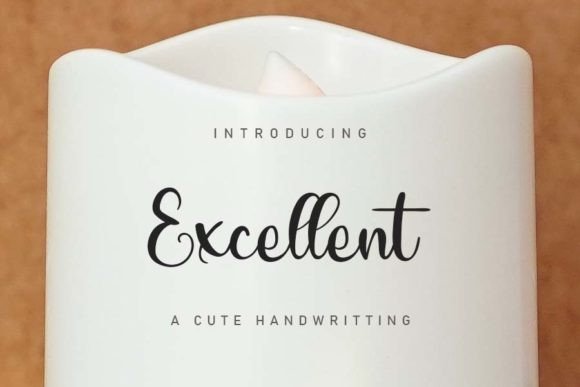
Prepare to be spellbound by the captivating allure of Excellent Font, a script font family that's not just a tool, but a pathway to expressing your heartfelt emotions. Crafted with meticulous care by the talented Snowman Studio, Excellent Font isn't merely a collection of letters; it's an invitation to explore the depths of your creativity and ignite the flames of passion in your designs.
Excellent Font is more than just a font; it's a testament to the enduring power of love. Its graceful curves and playful lines dance across the page, evoking a sense of romance and tenderness that will leave you utterly smitten. With Excellent Font, your words take on a life of their own, whispering sweet nothings and painting pictures of adoration.
Imagine your love letters, adorned with the elegance of Excellent Font. Each stroke of the pen, each carefully chosen word, becomes a testament to your unwavering devotion. Whether you're declaring your undying love or simply sending a heartfelt message of appreciation, Excellent Font elevates your words, transforming them into cherished keepsakes that will be treasured for years to come.
But Excellent Font's allure isn't limited to love letters; it's a font that knows no boundaries. Its versatility extends to invitations, greeting cards, posters, and any creative project where a touch of enchantment is desired. With its playful personality, Excellent Font breathes life into your designs, captivating your audience with its charm.
So, step into the realm of romance and let Excellent Font guide you on a journey of creative expression. Let its enchanting curves and heartfelt strokes ignite the passion within you, transforming your designs into masterpieces of love and beauty. Embrace the boundless possibilities of Excellent Font and let your creativity soar to new heights.